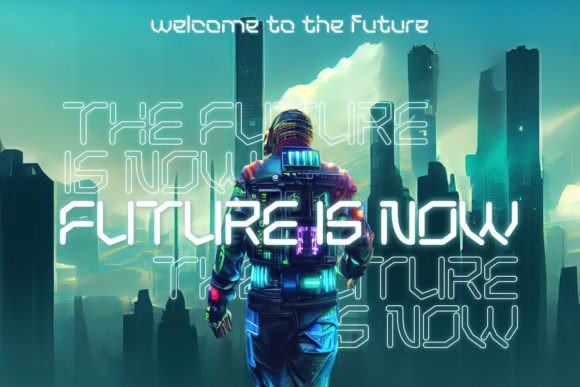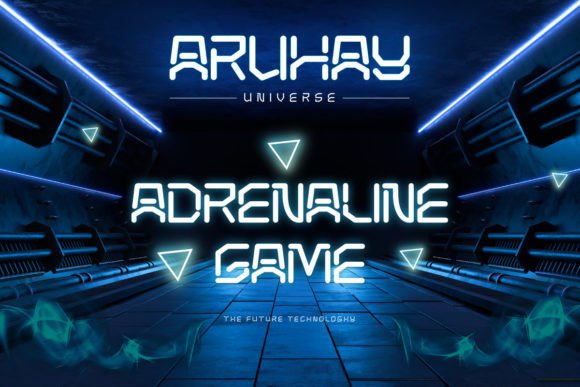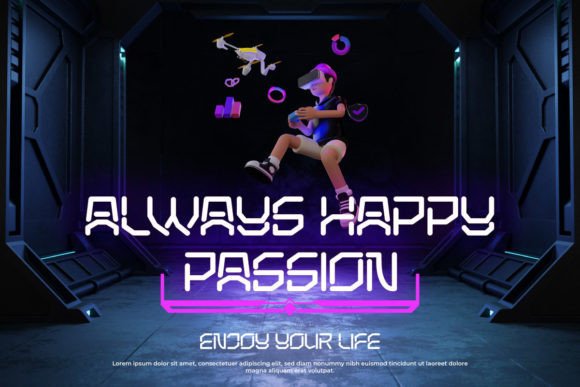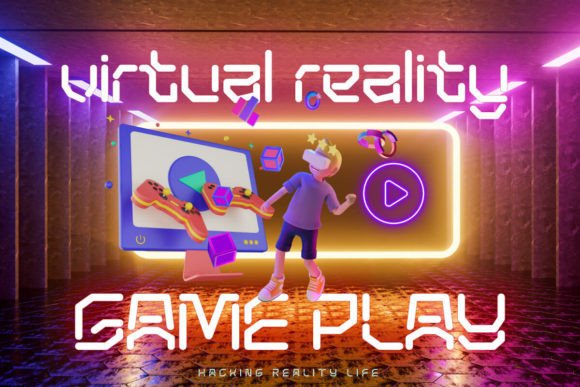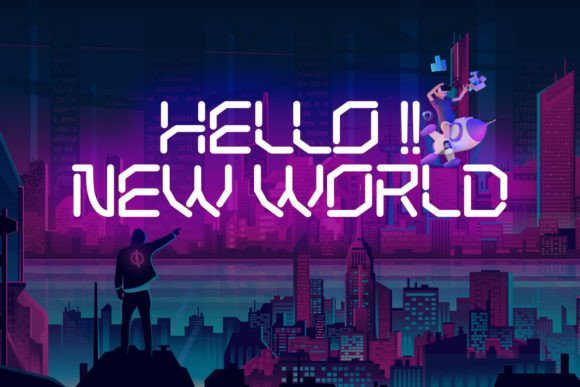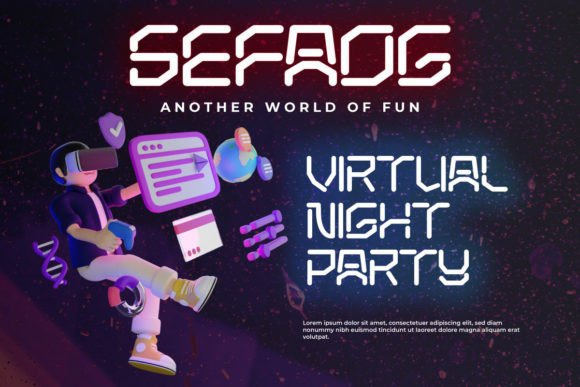
Welcome to Gobah Font: The Ultimate Solution for Modern and Futuristic Designs
In the world of design, fonts play a crucial role in conveying the message and tone of a project. When it comes to modern, futuristic, sci-fi, and future-themed projects, having the right font is essential. This is where Gobah Font comes in – a revolutionary font that presents the future atmosphere in an amazingly modern and futuristic style. In this article, we’ll explore the features and benefits of Gobah Font, and why it’s the perfect solution for designers and crafters looking to create stunning and unforgettable designs.
Introducing Gobah Font: A Unique and Sophisticated Typeface
Gobah Font is a meticulously crafted font that transports you to an extraordinary world with a unique look that reflects a sophisticated future feel. Each letter is uniquely designed, giving your project a modern, innovative, and charming look. The font’s design is inspired by the futuristic and sci-fi themes, making it perfect for projects that require a cutting-edge and avant-garde style.
The Main Benefits of Gobah Font
The main benefit of Gobah Font is its ability to deliver stunning styles. Each letter has an exclusive design, creating an eye-catching futuristic look that will give your projects a strong visual appeal. With Gobah Font, you can:
• Create modern and futuristic designs that stand out from the crowd
• Add a touch of sophistication and innovation to your projects
• Convey a sense of futurism and cutting-edge technology
• Make a lasting impression on your audience
Why Choose Gobah Font for Your Projects?
Gobah Font is the right choice for designers and crafters looking for a font that can help them create stunning and unforgettable designs. Here are some reasons why you should choose Gobah Font for your projects:
• Unique Design: Gobah Font has a unique design that sets it apart from other fonts. Each letter is carefully crafted to give your project a modern and futuristic look.
• Versatility: Gobah Font is versatile and can be used for a wide range of projects, including posters, brochures, magazines, and digital media.
• High-Quality: Gobah Font is a high-quality font that is designed to deliver exceptional results.
Tips and Tricks for Getting the Most Out of Gobah Font
Here are some tips and tricks for getting the most out of Gobah Font:
• Experiment with Different Sizes and Styles: Experiment with different font sizes and styles to create a unique look.
• Combine with Other Fonts: Combine Gobah Font with other fonts to create a contrasting look.
• Use in Digital Media: Use Gobah Font in digital media, such as videos and animations, to create a futuristic and modern look.
In conclusion, Gobah Font is a revolutionary font that presents the future atmosphere in an amazingly modern and futuristic style. With its unique design, versatility, and ease of use, Gobah Font is the perfect solution for designers and crafters looking to create stunning and unforgettable designs. Whether you’re working on a modern, futuristic, sci-fi, or future-themed project, Gobah Font is the right choice. So why wait? Download Gobah Font today and take your designs to the next level!